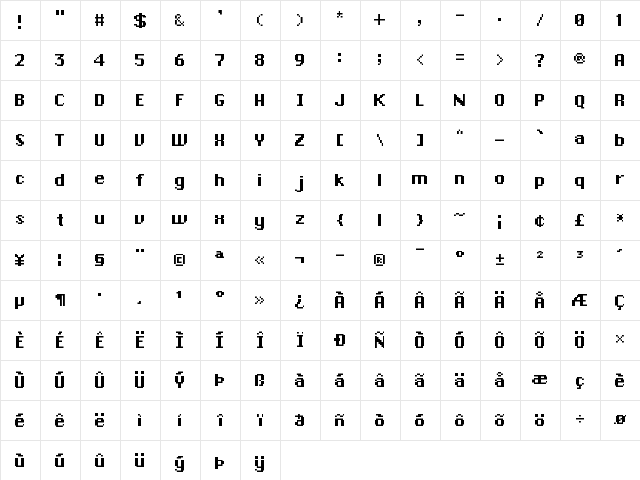
Final Fantasy 3/6 Font Regular
| Designer | Veylon |
Design Context for Final Fantasy 3/6 Font Typeface
Final Fantasy 3/6 Font offers clean, dependable letterforms without strong stylistic allegiance, making it a practical choice for designers who need flexibility.